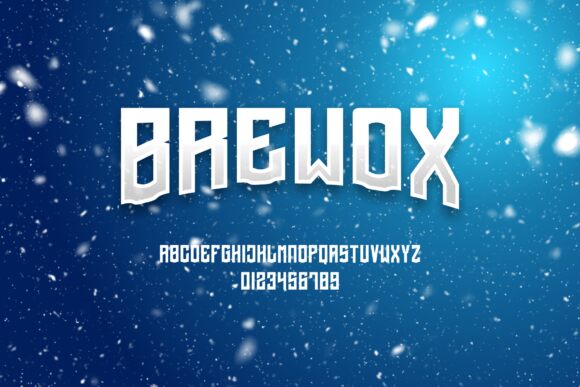
Brewox, designed by Albert Kalingga, is a modern gothic font with a condensed width that exudes sophistication and boldness. This versatile typeface is perfect for a wide range of projects such as fashion magazines, luxury branding, and urban streetwear logos. Its sleek and edgy style adds an avant-garde touch to album covers, movie posters, or tattoo designs. Brewox's clean lines and strong presence make it an excellent choice for website headers and professional presentations. Whether you're aiming for elegance or an urban vibe, Brewox will elevate your design to new heights.